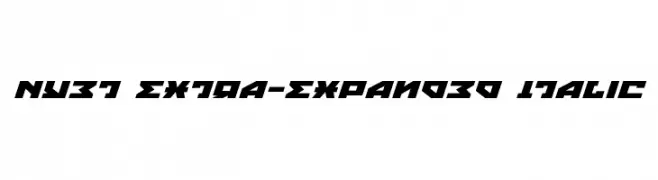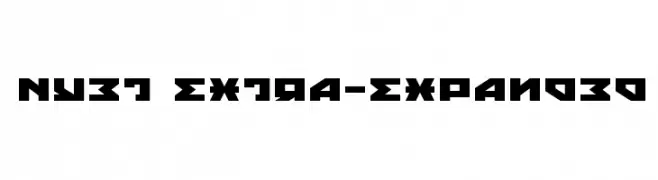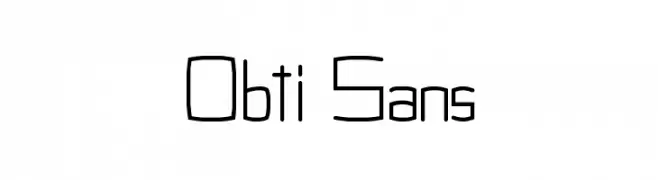
A modern, elegant sans-serif font with an extra light weight and subtle italic style.
A bold, geometric font with angular lines and a blocky appearance.
A bold, geometric font with sharp angles and a futuristic style.
A bold, extra-expanded italic font with a futuristic and dynamic style.
A bold, modern typeface with thick strokes and clean lines.
A bold, slanted font with a modern and dynamic style.
A modern, geometric font with clean lines and a slightly condensed style.
A modern, geometric font with consistent line weight and balanced spacing.
A bold, playful dingbat font with baby and nature-themed icons.